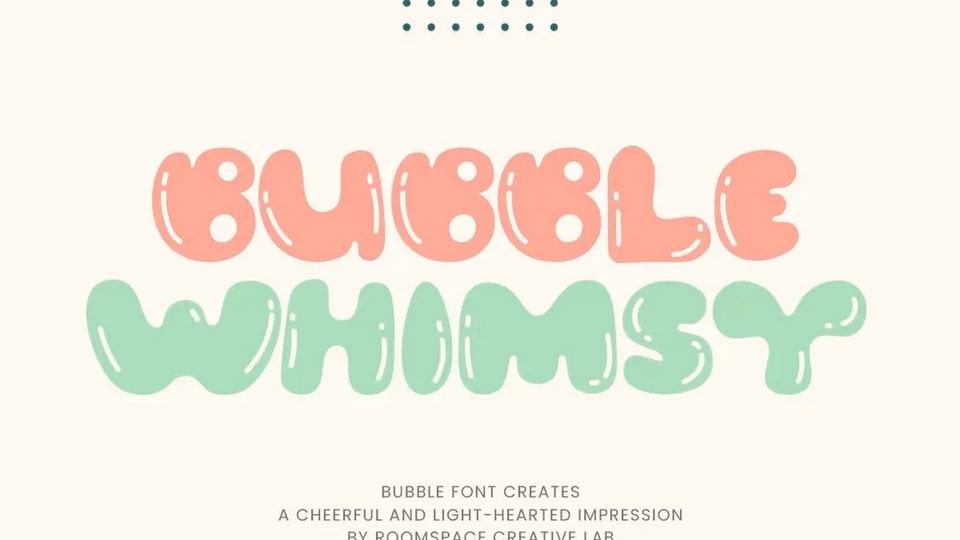
Download Bubble Whimsy font, a delightful bubble typeface that brings joy and playfulness to every design! Perfect for moms, designers, and creatives looking to add a touch of fun and light-heartedness